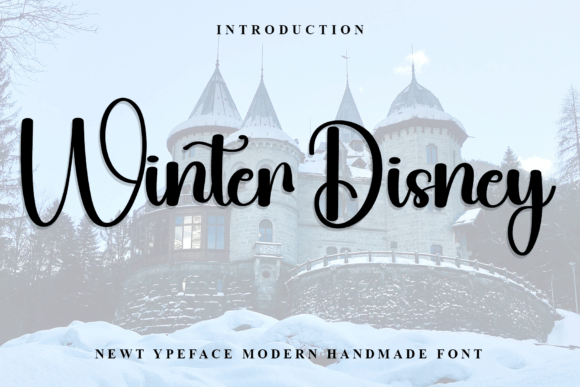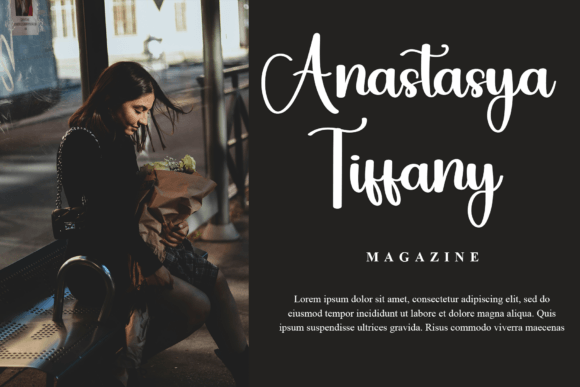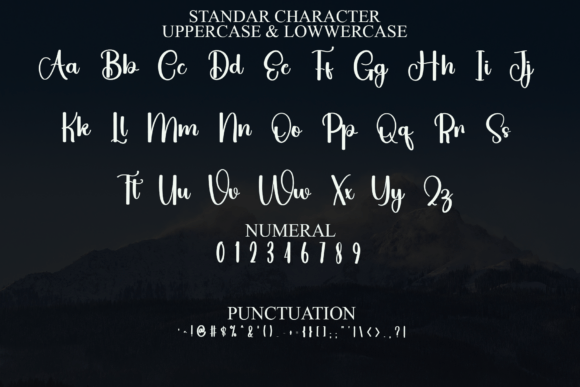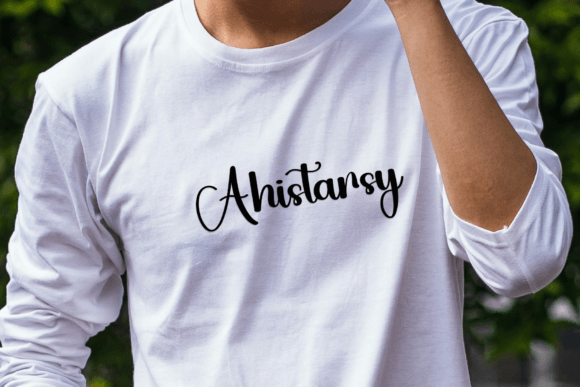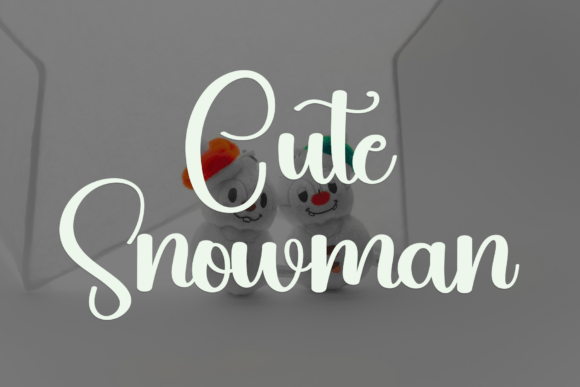
Winter Disney Font
Winter Disney font is a very beautiful font. The smooth touch and beautiful strokes will give a natural feel to your work. Apart from that, this font is suitable for making banners, YouTube thumbnails, logo designs, wedding invitation cards, clothing mockups, t-shirts, and many others.